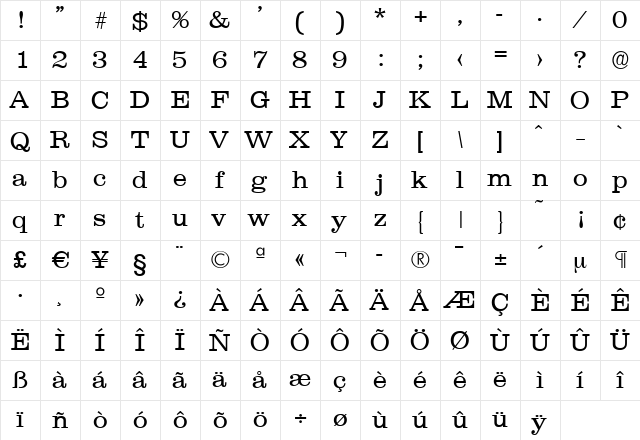
JamesBecker-Light Regular
Design Context for JamesBecker-Light Typeface
JamesBecker-Light is a composed and adaptable typeface that performs quietly and consistently across a wide range of design contexts. The delicate stroke weight brings airiness and refinement to layouts.